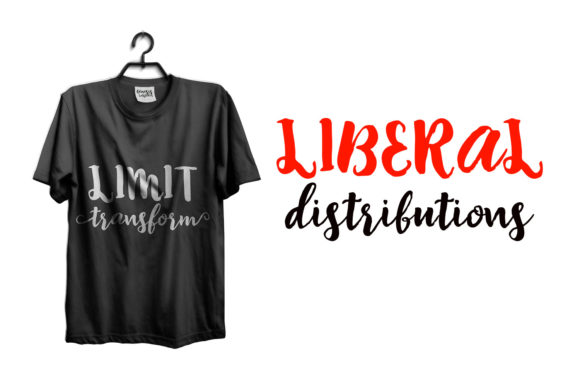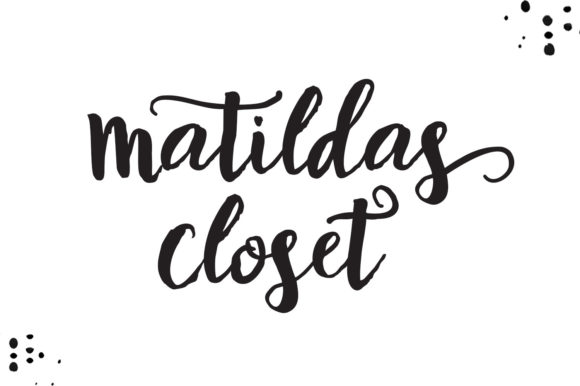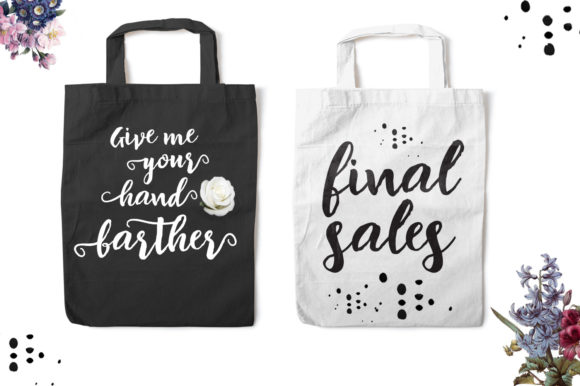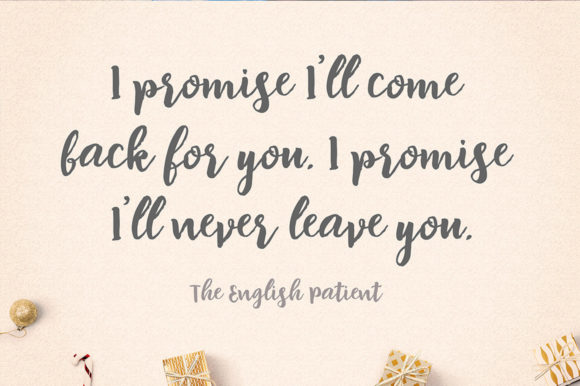
Introducing Armstrong Font: The Perfect Blend of Fun and Modernity
Are you tired of using the same old fonts for your designs? Look no further than the Armstrong Font, a painted, fun, and modern handwritten font that’s sure to add a touch of personality to your work. With its natural-looking characters, this typeface is perfect for product packaging, titles, posters, t-shirts, or any other idea that needs interesting typography.
The Characteristics of Armstrong Font
Armstrong Font is a unique and eye-catching typeface that’s designed to make your designs stand out. Its key characteristics include:
- Handwritten style: Armstrong Font has a natural, handwritten look that’s perfect for creating a personal touch in your designs.
- Painted effect: The font has a painted effect that gives it a fun and modern feel.
- Natural-looking characters: Each character in the font is designed to look like it was written by hand, giving your designs a unique and organic feel.
Uses for Armstrong Font
Armstrong Font is a versatile typeface that can be used for a wide range of design projects. Here are some ideas to get you started:
- Product packaging: Add a personal touch to your product packaging with Armstrong Font. Its unique and eye-catching design is sure to make your products stand out on store shelves.
- Titles and headings: Use Armstrong Font to create bold and eye-catching titles and headings for your designs. Its modern and fun style is perfect for grabbing attention.
- Posters and flyers: Create eye-catching posters and flyers with Armstrong Font. Its painted effect and handwritten style make it perfect for promoting events, sales, and more.
- T-shirts and apparel: Armstrong Font is a great choice for designing t-shirts and other apparel. Its fun and modern style is sure to appeal to a wide range of audiences.
Why Choose Armstrong Font?
With so many fonts to choose from, why should you choose Armstrong Font? Here are just a few reasons:
- Unique and eye-catching: Armstrong Font is a unique and eye-catching typeface that’s sure to make your designs stand out.
- Versatile: This font can be used for a wide range of design projects, from product packaging to t-shirts and apparel.
- Easy to read: Despite its handwritten style, Armstrong Font is easy to read and understand, making it perfect for use in titles, headings, and body text.
Tips for Using Armstrong Font
Here are a few tips for getting the most out of Armstrong Font:
- Use it sparingly: Armstrong Font is a bold and eye-catching typeface, so use it sparingly to avoid overwhelming your designs.
- Pair it with other fonts: Armstrong Font pairs well with a wide range of other fonts, so don’t be afraid to experiment with different combinations.
- Experiment with colors: The painted effect of Armstrong Font makes it perfect for use with a wide range of colors and textures.
Armstrong Font is a unique and eye-catching typeface that’s perfect for designers and crafters looking to add a touch of personality to their work. With its natural-looking characters, painted effect, and handwritten style, this font is sure to make your designs stand out. Whether you’re working on product packaging, titles, posters, t-shirts, or any other design project, Armstrong Font is a great choice.